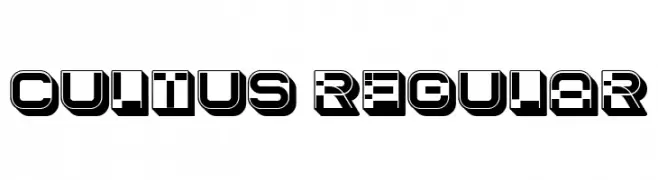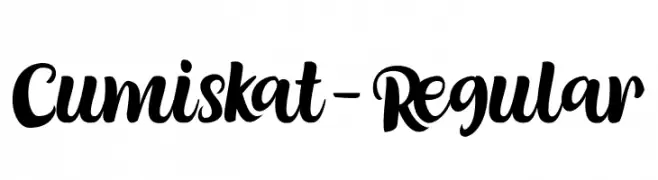
( Michael D. Adams - www.triskele.com/roadgeek-fonts/ )
A bold, modern font with strong, clear letterforms ideal for signage.
( Michael D. Adams - www.triskele.com/roadgeek-fonts/ )
A modern, highly legible sans-serif font ideal for signage and clear communication.
( Michael D. Adams - www.triskele.com/roadgeek-fonts/ )
A bold, clean sans-serif font with geometric shapes and uniform strokes.
A casual, handwritten-style font with a playful and informal appearance.
A dynamic and expressive script font with fluid, elegant strokes.
A dynamic and flowing script font with elegant, fluid strokes.
( Fonts by 24DesignStd )
A bold, outlined decorative font with a playful, retro aesthetic.
( Fonts by Muhammad Nichal Zaki )
A bold, hand-painted style font with a rugged, organic feel.
A modern, layered font with a three-dimensional effect and decorative line work.
( Fonts by Ariq Sya - marsnev.com )
A playful, rounded font with bold, smooth curves and a friendly appearance.
A bold, textured font with a distressed, grunge-like appearance.
A dynamic, cursive script font with expressive, flowing strokes.
An elegant script font with flowing cursive style and intricate swashes.
A bold, dynamic script font with flowing, cursive characters.
A bold, vintage-inspired font with sharp, angular edges.
A bold, angular serif font with a modern yet vintage appeal.
A bold, geometric font with a futuristic and industrial style.
A bold, italic font with angular lines and diagonal stripes, exuding a futuristic and dynamic style.
( Fonts by Sherleen Christie Soetanto )
A bold, decorative font with road marking patterns for a playful look.
A bold, tall, and narrow font with consistent stroke widths for a strong, assertive appearance.
A bold, condensed font with uniform stroke width for strong visual impact.
( Fonts by Din Studio )
A bold, graffiti-inspired font with sharp, angular edges and a dynamic, dripping effect.
( Caveras - Cliff Modes - caveras.net )
A bold, pixelated font with a retro digital aesthetic.
( Fonts by Boris Schrage )
A bold, distressed font with a vintage, rugged appearance.
A bold, hand-drawn font with a playful and energetic style.
( Fonts by zainstudio )
A bold, dynamic font with a playful and aggressive style.